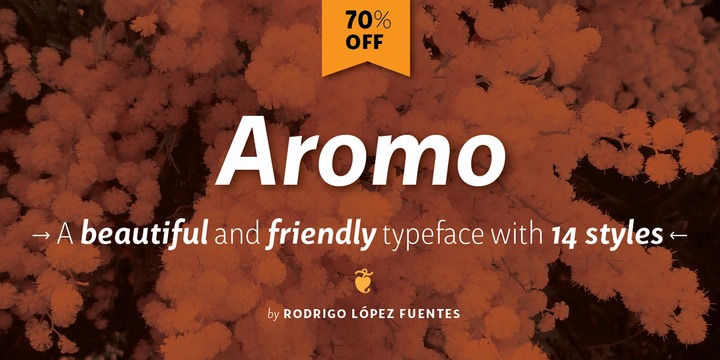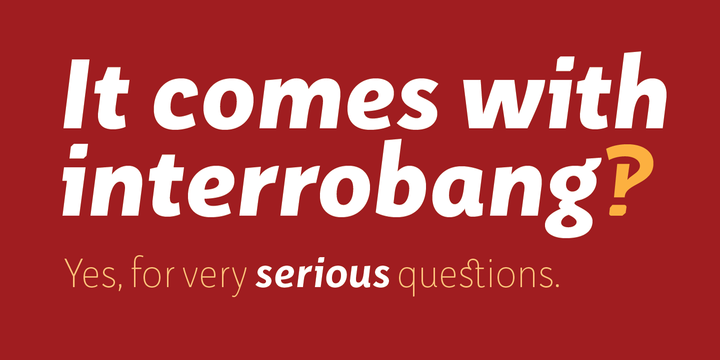
Aromo
Aromo Font Family
Aromo was initially conceived for editorial purposes. This typeface mixes the versatility of a simple and modern sans-serif, with the sensibility of the humanist feeling: thus making it useful in a wide range of purposes when a balanced and friendly font, with elegant proportions and high readability is required.